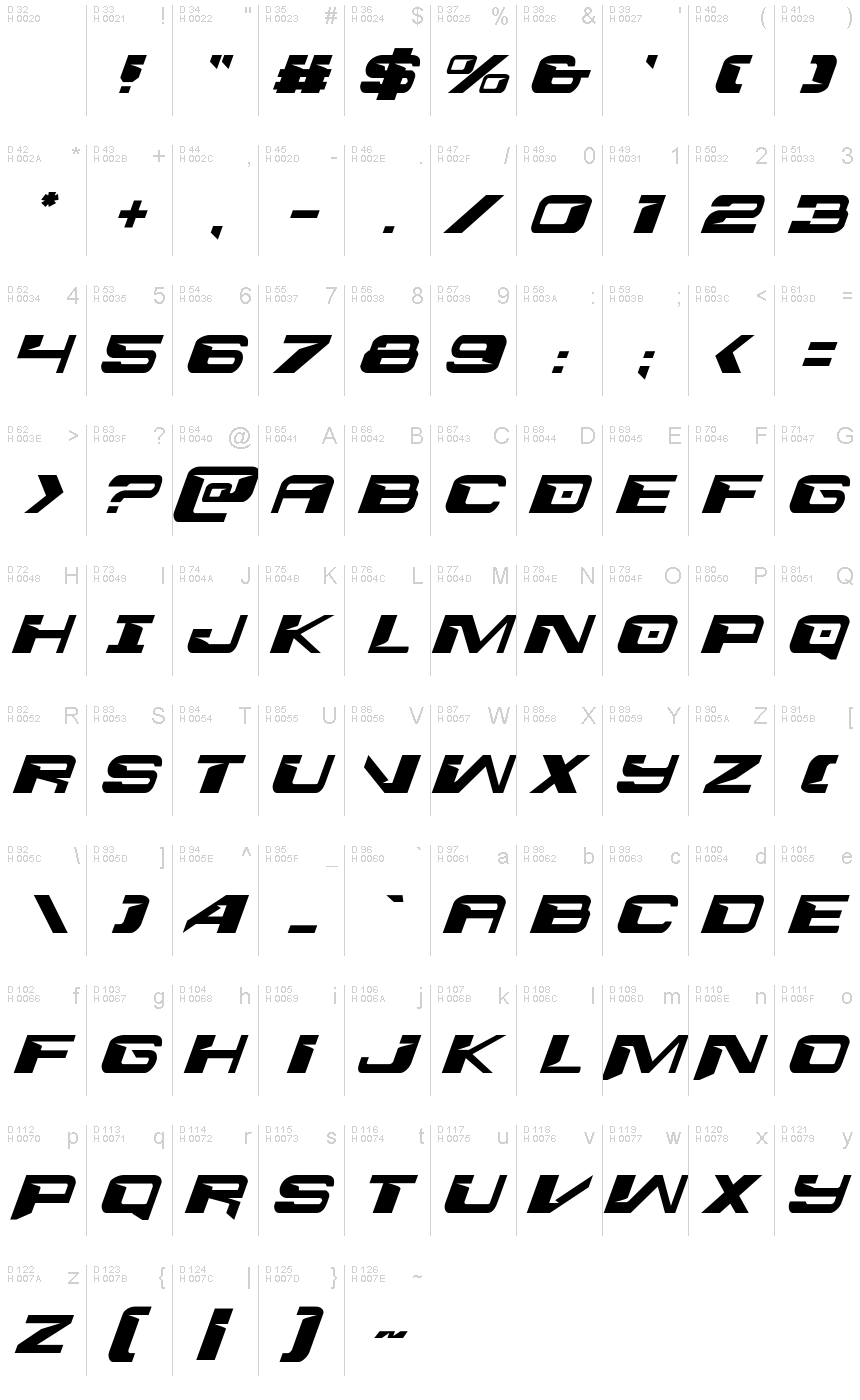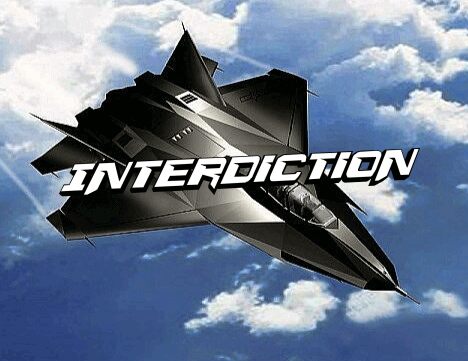
Interdiction Semi-Italic
Interdiction Semi-Italic, a captivating display font from the Interdiction family, designed by Iconian Fonts, exudes a bold, futuristic flair. With its expanded width and semibold strokes, this typeface commands attention, evoking a sense of modern elegance and technological prowess. The semi-italic slant adds a dynamic touch, lending a touch of forward momentum to the letterforms.
The Interdiction Semi-Italic font shines in contexts that require a strong, impactful visual presence. Its distinctive characteristics make it an ideal choice for branding, event materials, product packaging, and digital interfaces where a bold, attention-grabbing aesthetic is desired. The font's versatility allows it to seamlessly transition between various design applications, from eye-catching headlines to captivating subheadings and logos.